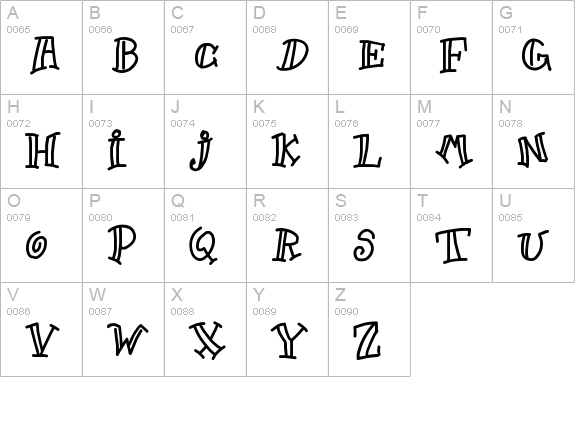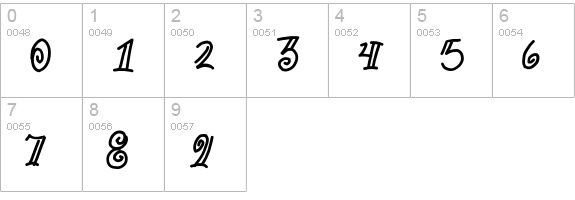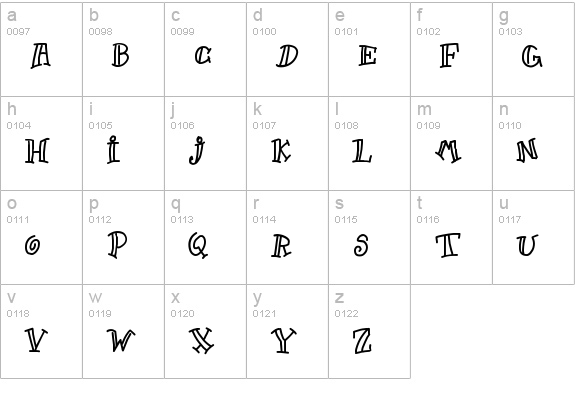
Goofball Font Details
Goofball font is a playful and quirky typeface that adds a fun and whimsical touch to any design. With its irregular shapes and bouncy letterforms, this font exudes a sense of lightheartedness and creativity. Whether you're working on a children's book, party invitation, or branding project, Goofball font is sure to bring a smile to your audience's face. And the best part? It's completely free to download at FontsMarket.com! So go ahead and infuse your designs with a dose of goofiness with the Goofball font. Let your imagination run wild and bring a touch of playfulness to your projects with this delightful typeface.